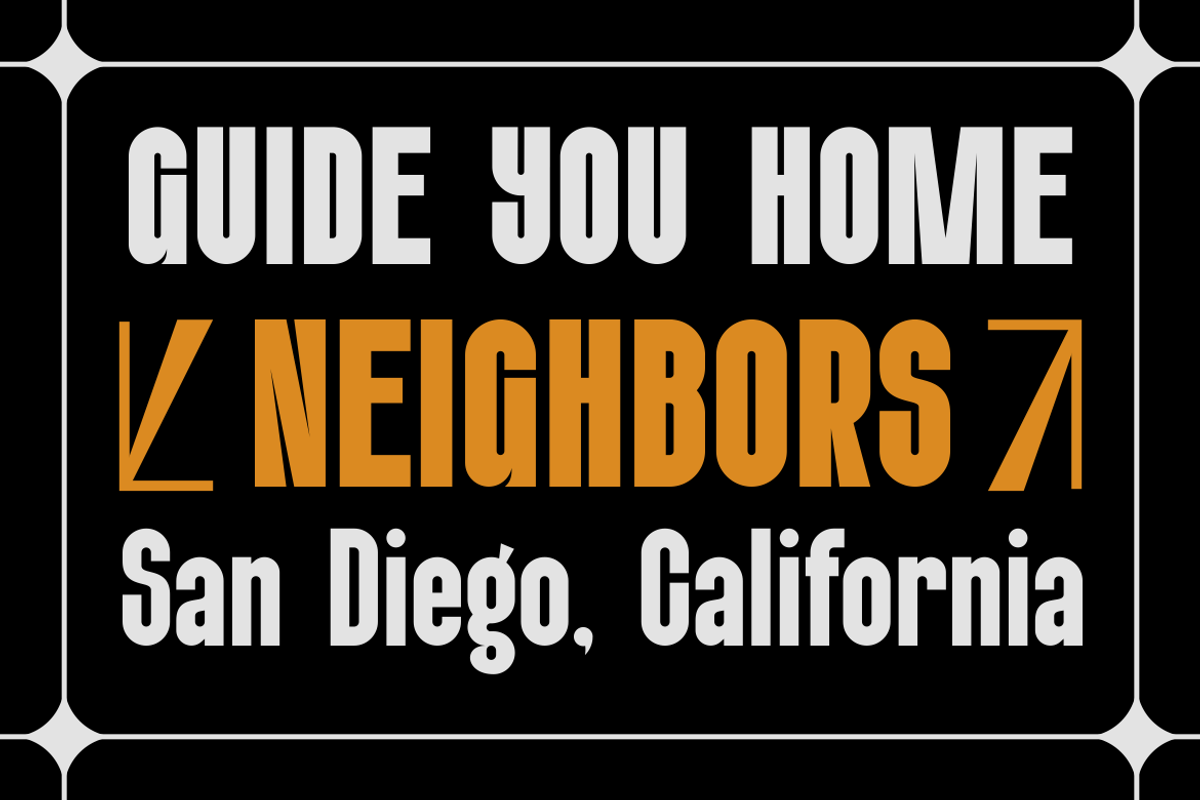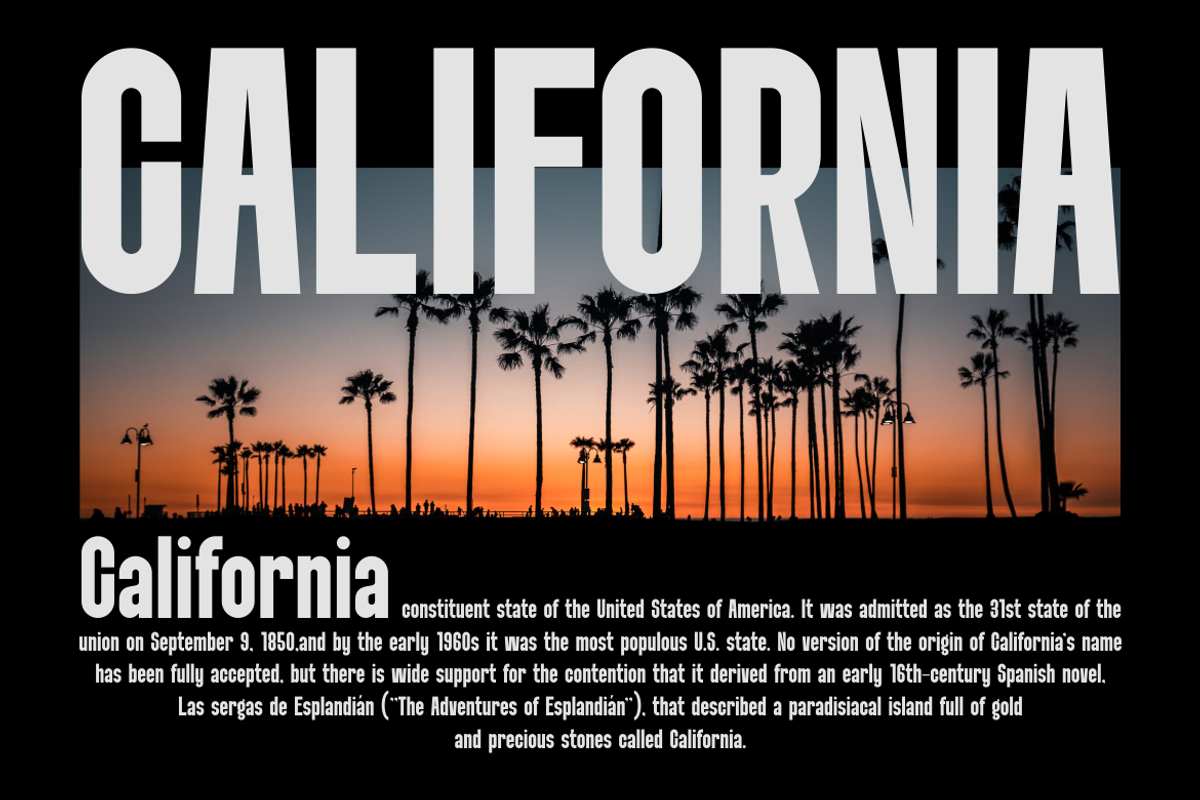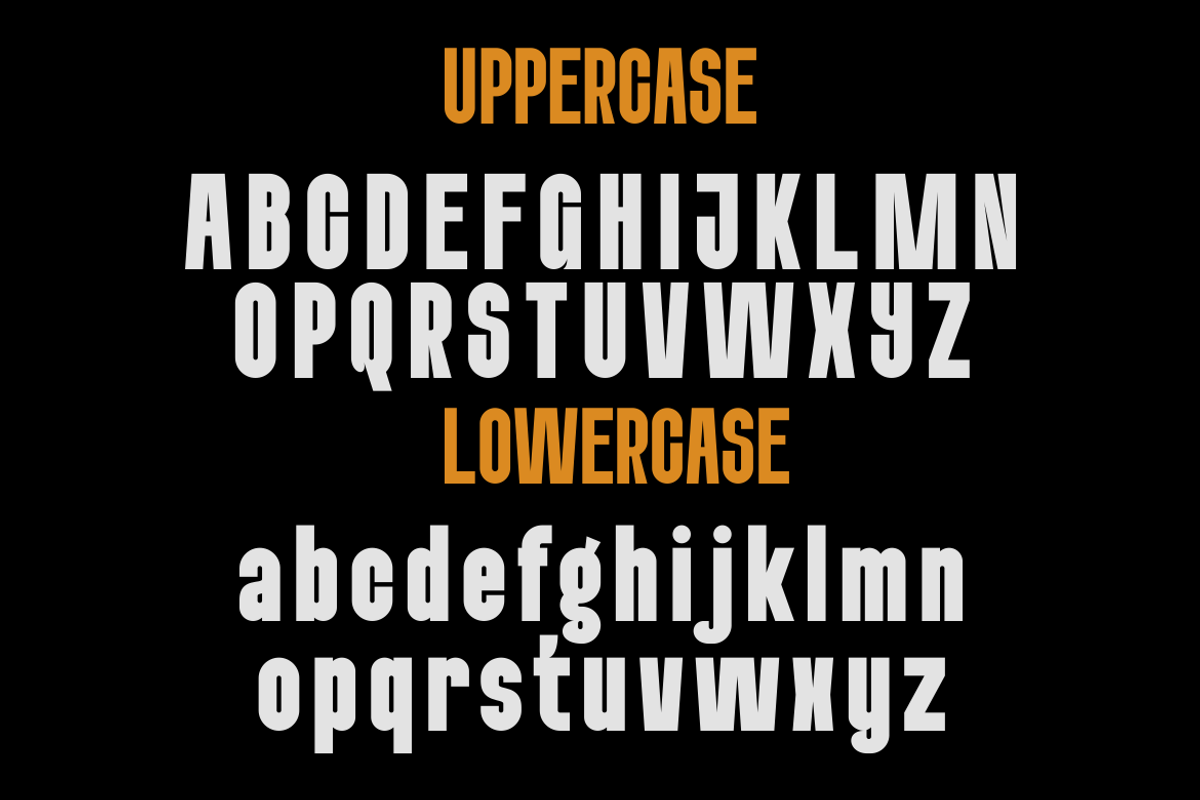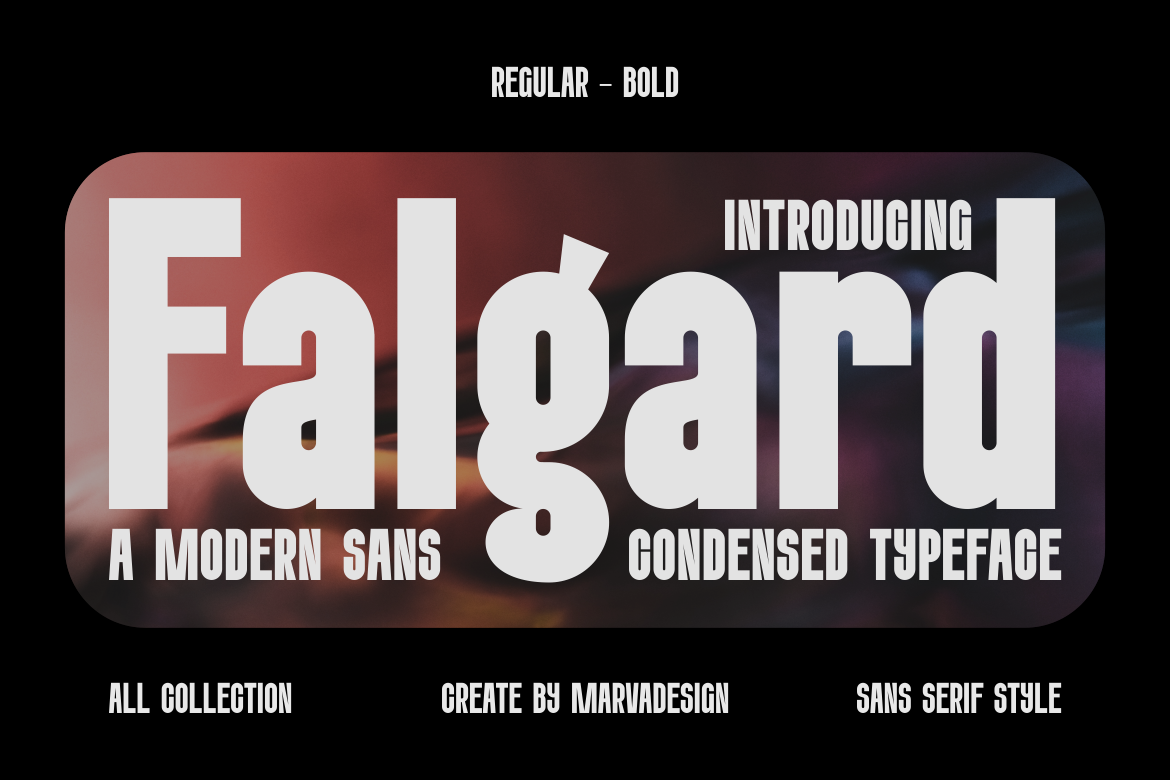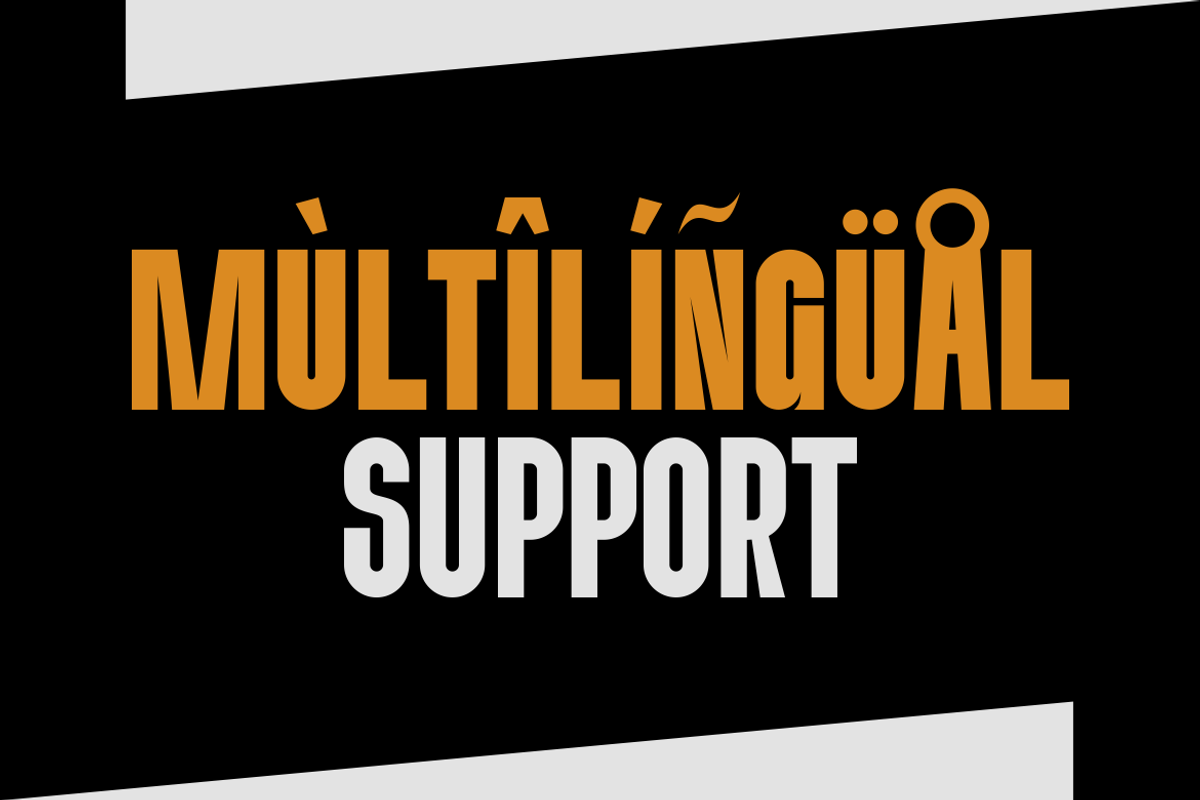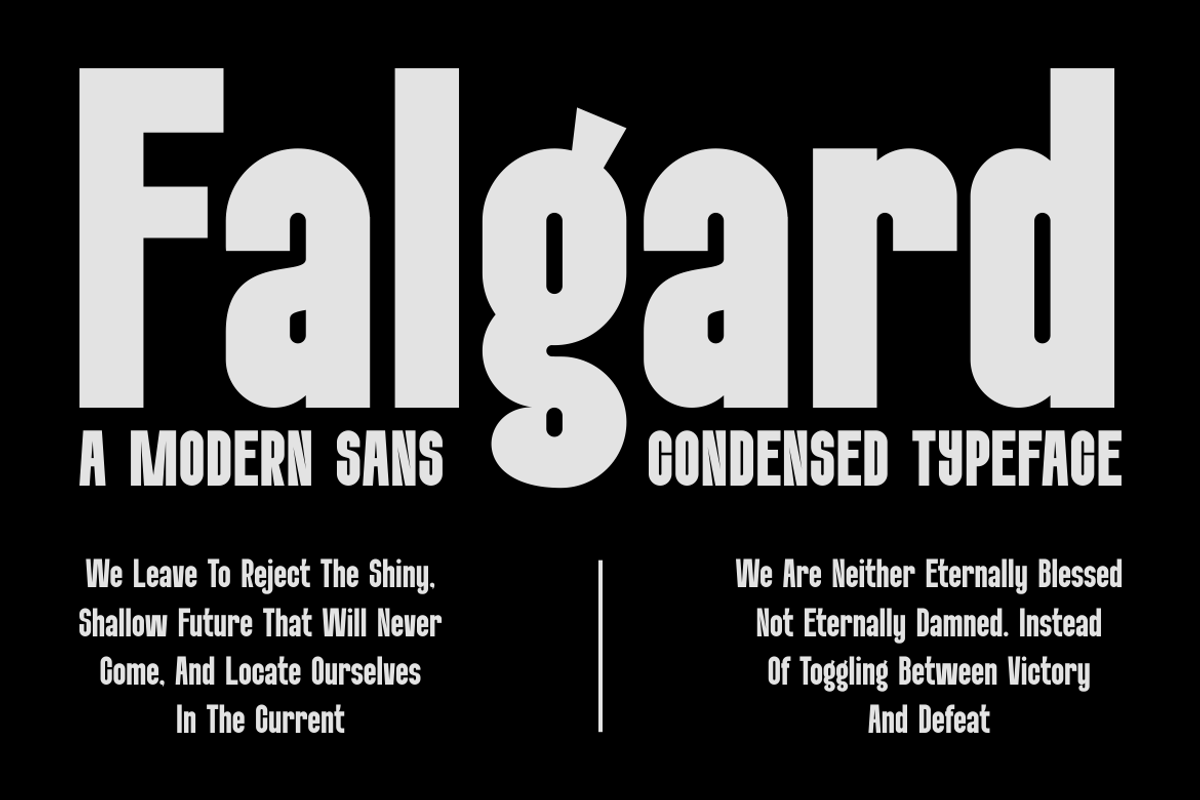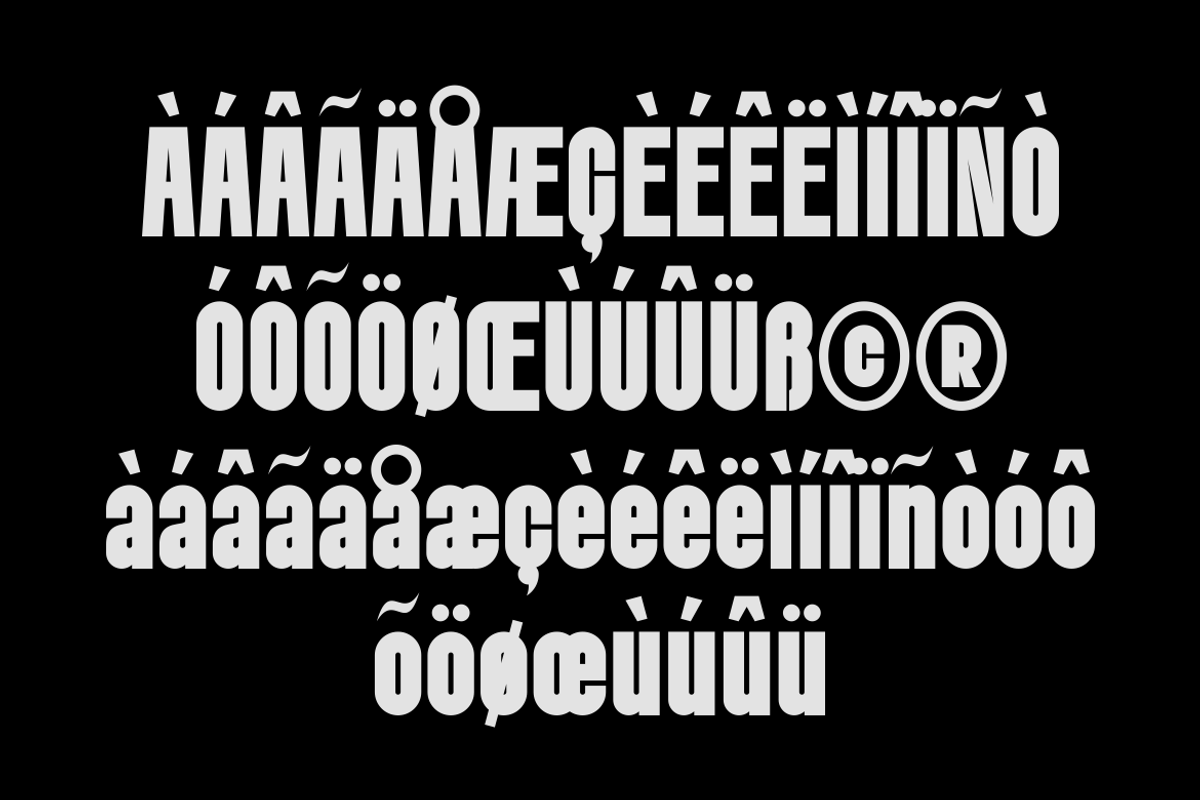
Falgard - A Modern Condensed Font
Introducing our new product Falgard Font - Modern Font is a bold and authentic display font. The font is suitable for any branding project like logo, Template Design, Product and many more. outstanding in a wide range of contexts.